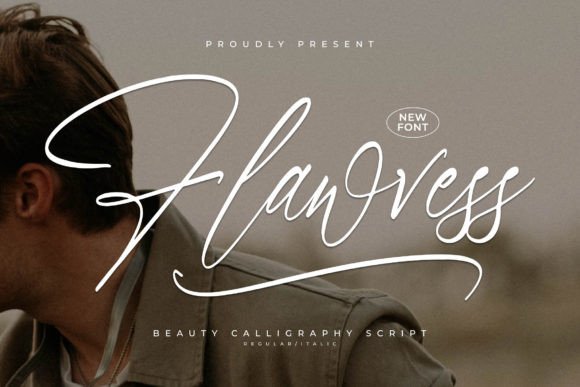
Introducing Flawvess Font, the epitome of elegance and beauty, ready to transform your designs into captivating masterpieces. This exquisite script font is the brainchild of Glorytype Studio and will undoubtedly steal your heart with its handwritten charm. Immerse yourself in the world of Flawvess, where your creative visions effortlessly come to life.
Flawvess is not just a font but an expression of your artistic soul. With its graceful curves and impeccable flow, this font adds a touch of sophistication to any project. Whether you're crafting wedding invitations, thank-you cards, or logos, Flawvess weaves a narrative of elegance and refinement. Its versatility knows no bounds, making it the perfect choice for greeting cards, business cards, and countless other designs that crave a hint of handwritten allure.
Step into the world of timeless beauty as Flawvess dances across your designs, captivating your audience with its undeniable allure. Elevate your creations with this extraordinary script font and watch as your words transform into works of art. Flawvess is the missing piece in your design arsenal, ready to unleash your creativity and leave a lasting impression.
Don't settle for ordinary when you can embrace the extraordinary. Choose Flawvess and embark on a journey of artistic expression like never before. Immerse yourself in the world of beauty and elegance, where your designs flourish and your creativity soars. Flawvess Font awaits you, ready to transform your designs into timeless masterpieces.